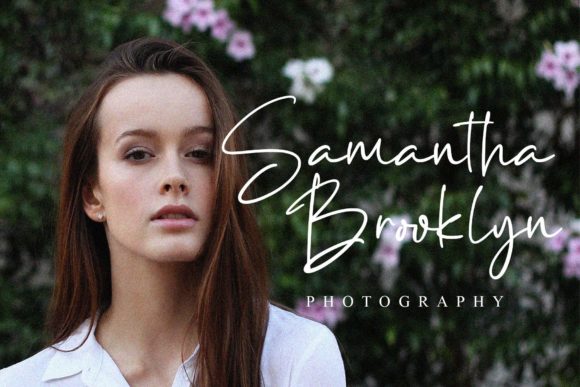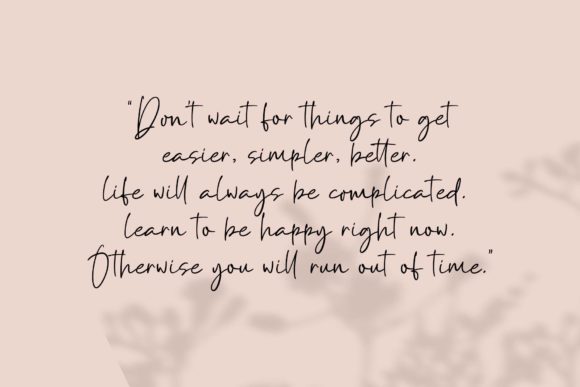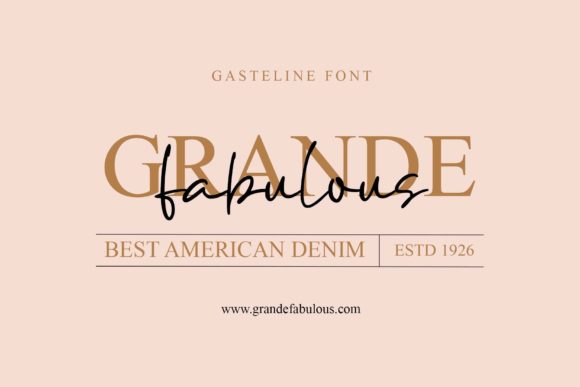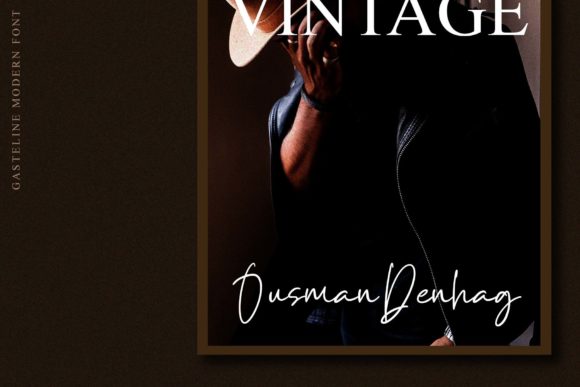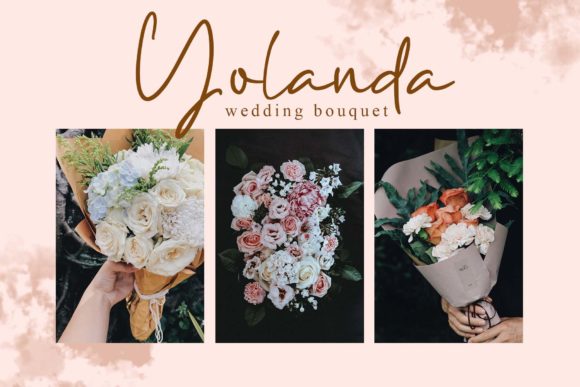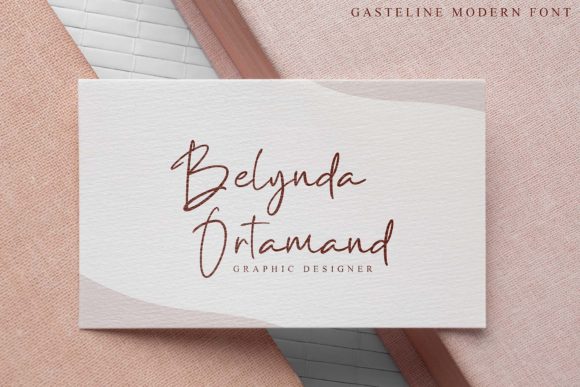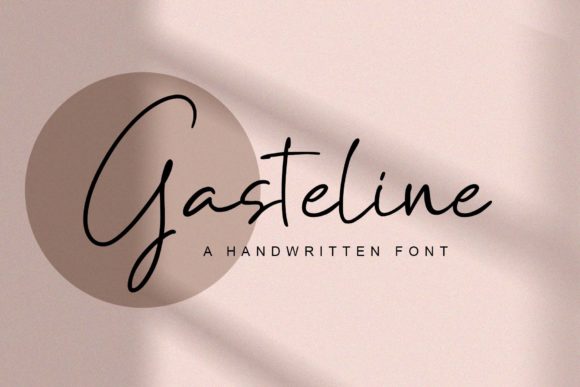
Gasteline Font: Elevate Your Designs with a Stylish and Modern Handwritten Touch
In the world of typography, fonts play a crucial role in conveying the tone and personality of a brand, product, or service. For designers and crafters, finding the perfect font can be a daunting task. However, if you’re looking for a stylish and modern handwritten font with a natural flow of hand-drawn touch, look no further than Gasteline Font.
What is Gasteline Font?
Gasteline Font is a beautiful, modern handwritten font that exudes elegance and sophistication. With its natural flow of hand-drawn touch, this font is perfect for adding a personal and unique touch to your designs. Whether you’re working on a branding project, creating wedding invitations, or designing a signature, Gasteline Font is an excellent choice.
Key Features of Gasteline Font
- Stylish and Modern Design: Gasteline Font boasts a stylish and modern design that is sure to make your designs stand out.
- Handwritten Touch: The font features a natural flow of hand-drawn touch, giving it a personal and unique feel.
- Versatile: Gasteline Font is perfect for a wide range of design applications, including branding, signature, wedding invites, and more.
- Elegant and Sophisticated: The font exudes elegance and sophistication, making it ideal for high-end designs.
Use Cases for Gasteline Font
Gasteline Font is a versatile font that can be used in a variety of design applications. Here are some use cases where Gasteline Font shines:
- Branding: Use Gasteline Font to create a unique and memorable brand identity that stands out from the crowd.
- Wedding Invitations: Add a touch of elegance and sophistication to your wedding invitations with Gasteline Font.
- Signature: Create a beautiful and stylish signature that reflects your personality with Gasteline Font.
- Stationery: Use Gasteline Font to create stylish and modern stationery that makes a lasting impression.
Why Choose Gasteline Font?
With so many fonts available, why choose Gasteline Font? Here are a few reasons why Gasteline Font stands out:
- Unique Design: Gasteline Font features a unique and stylish design that is sure to make your designs stand out.
- High-Quality: The font is of high quality, ensuring that it looks great in any design application.
- Easy to Read: Despite its stylish design, Gasteline Font is easy to read, making it perfect for body text and headings.
Tips for Using Gasteline Font
To get the most out of Gasteline Font, here are a few tips:
- Use it Sparingly: Use Gasteline Font sparingly to add emphasis and create visual interest in your designs.
- Pair it with Other Fonts: Pair Gasteline Font with other fonts to create a unique and visually appealing typography.
- Experiment with Colors: Experiment with different colors to find the perfect combination that complements Gasteline Font.
In conclusion, Gasteline Font is a stylish and modern handwritten font with a natural flow of hand-drawn touch. With its elegant and sophisticated design, it’s perfect for a wide range of design applications, including branding, signature, wedding invites, and more. Whether you’re a designer or crafter, Gasteline Font is an excellent choice for adding a personal and unique touch to your designs.